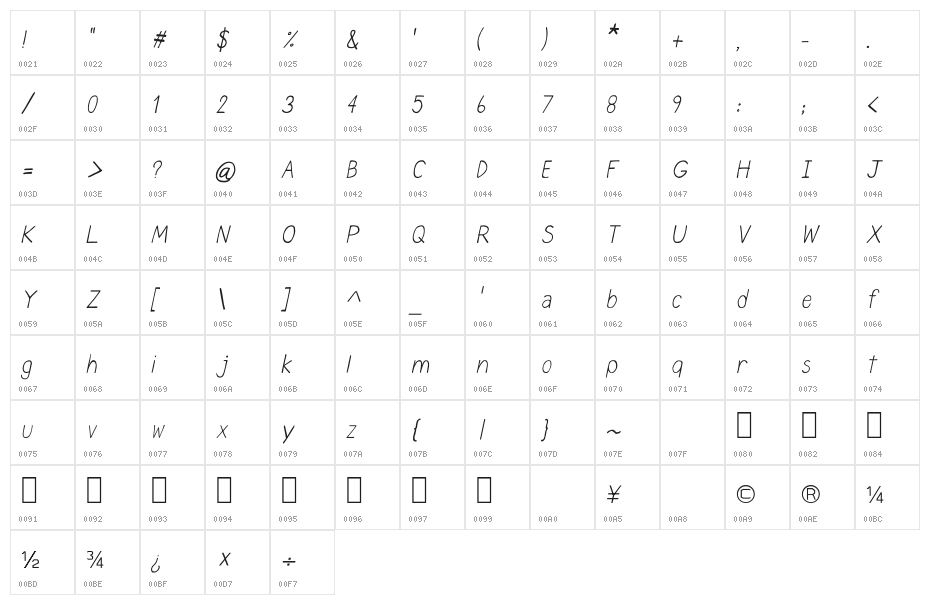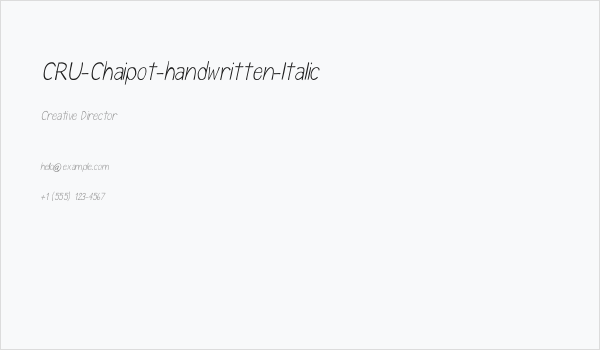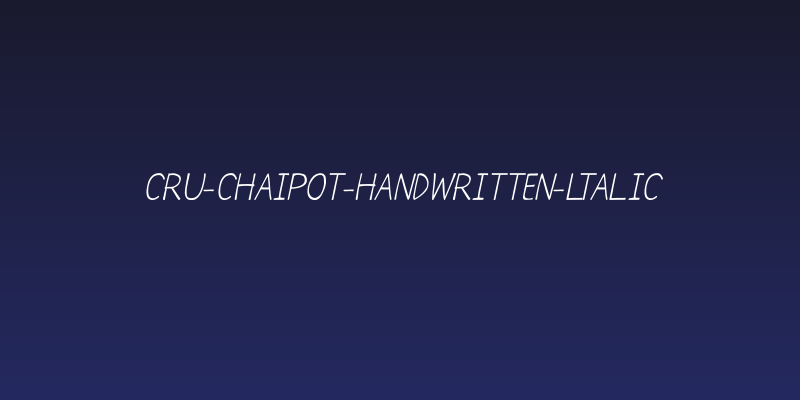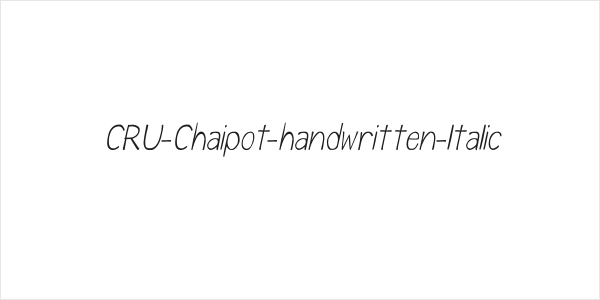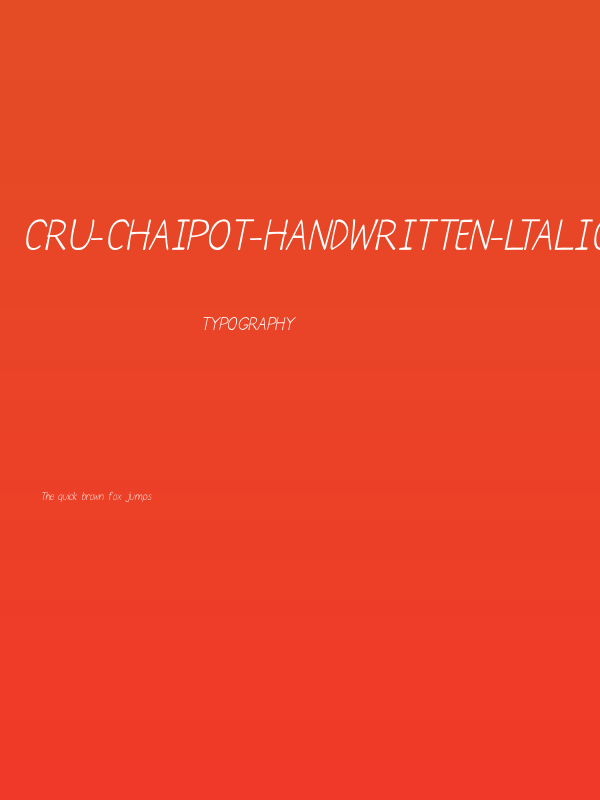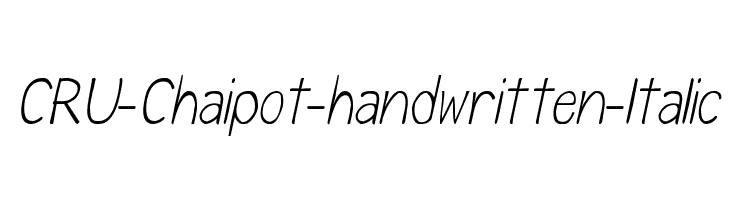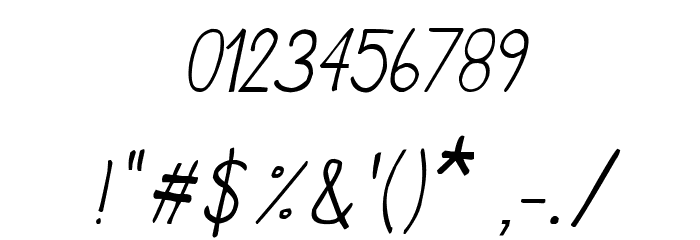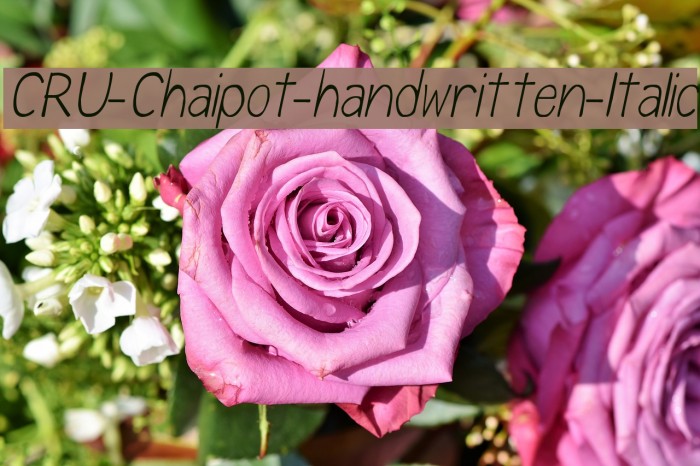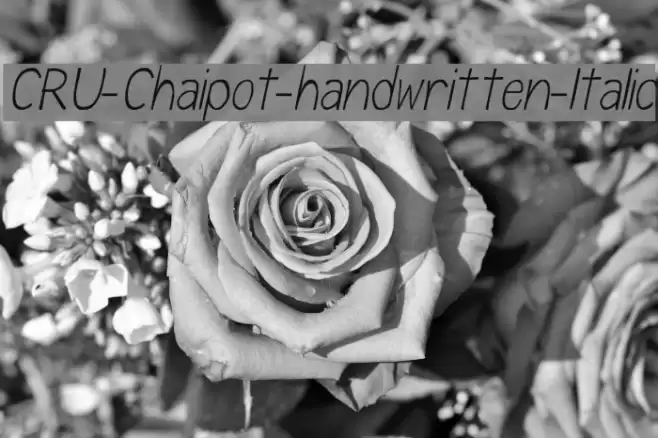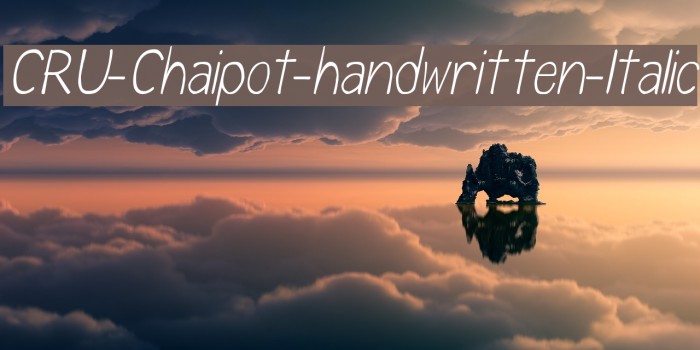
CRU-Chaipot-handwritten-ltalic Font
CRU-Chaipot-handwritten-ltalic Description
This font exudes a casual and personal touch, characterized by its handwritten style and italic slant. The letters are slightly slanted to the right, giving a sense of motion and fluidity. The strokes are smooth and consistent, with a moderate thickness that maintains readability while adding a touch of elegance. The uppercase and lowercase letters are well-proportioned, and the numerals are clear and distinct. Special characters are included, maintaining the same handwritten aesthetic. This font is perfect for projects that require a personal, informal, yet stylish look.
| Overall Style | Casual, Elegant |
| Use Case | Headlines, Informal Text, Branding |
| Proposed Projects | Ideal for personal invitations, greeting cards, casual branding, and social media graphics. |